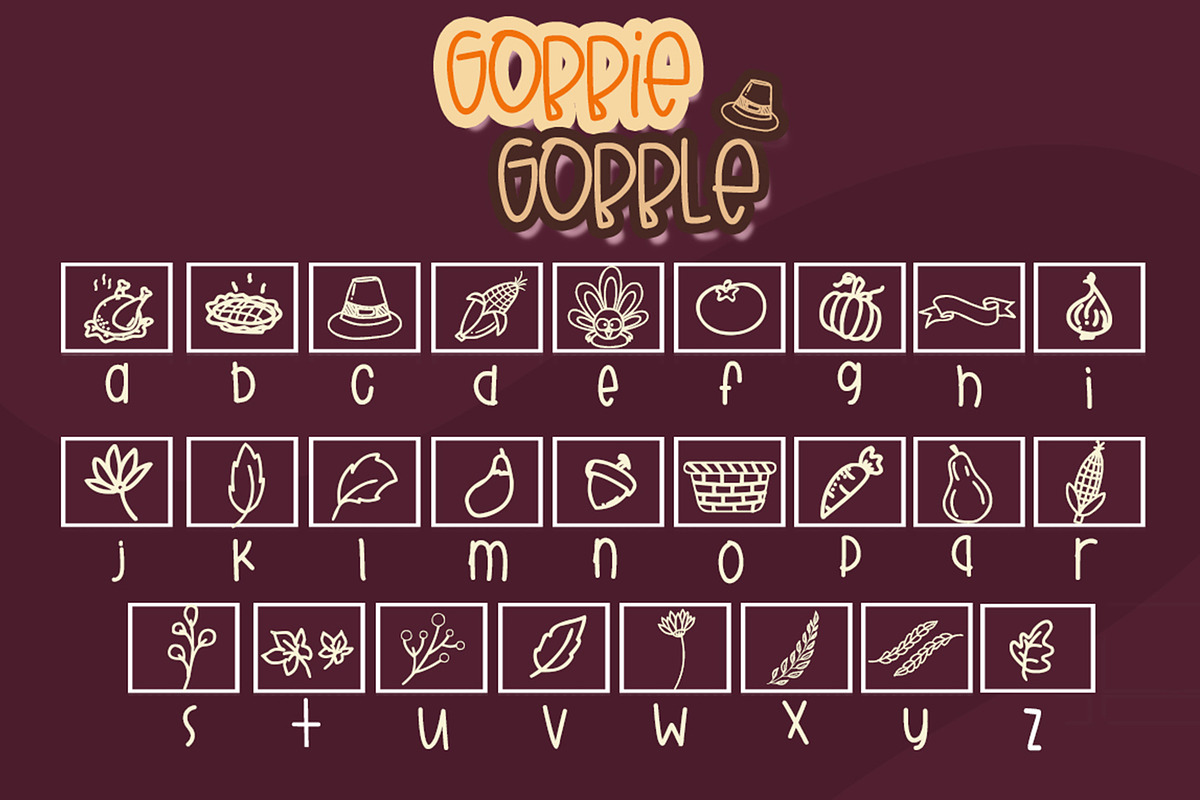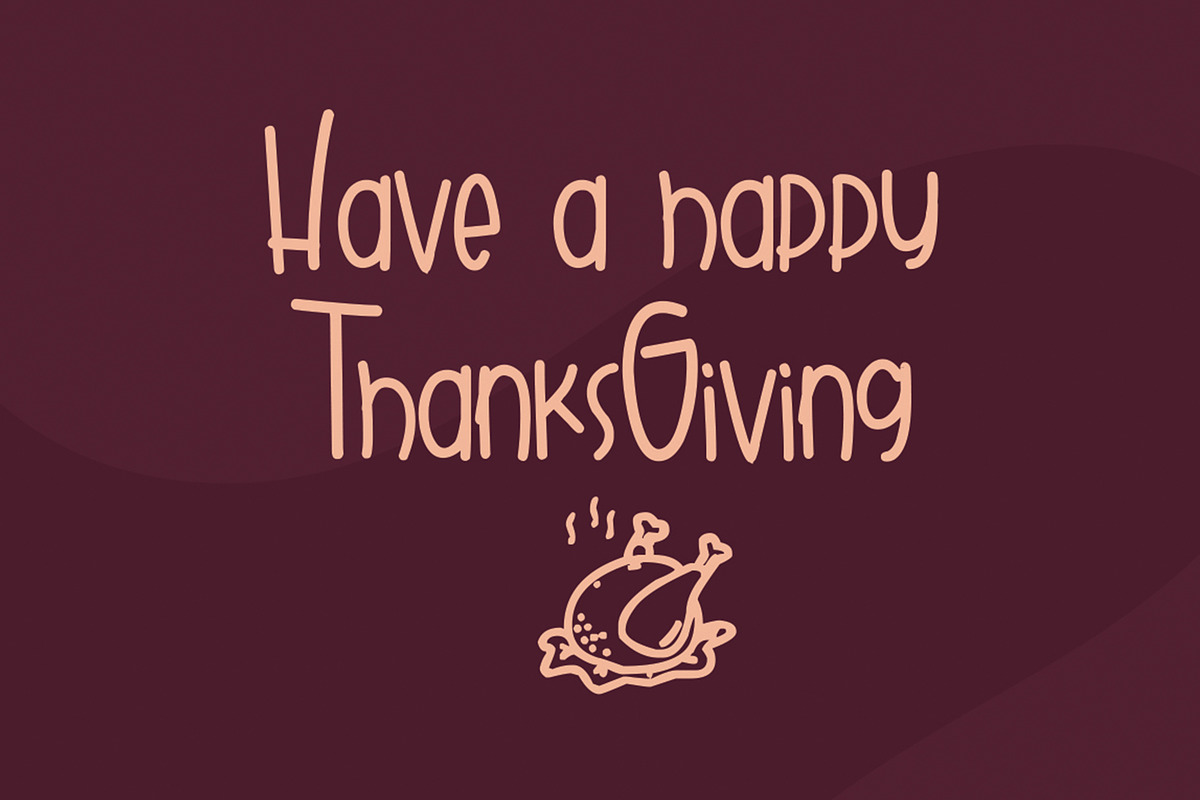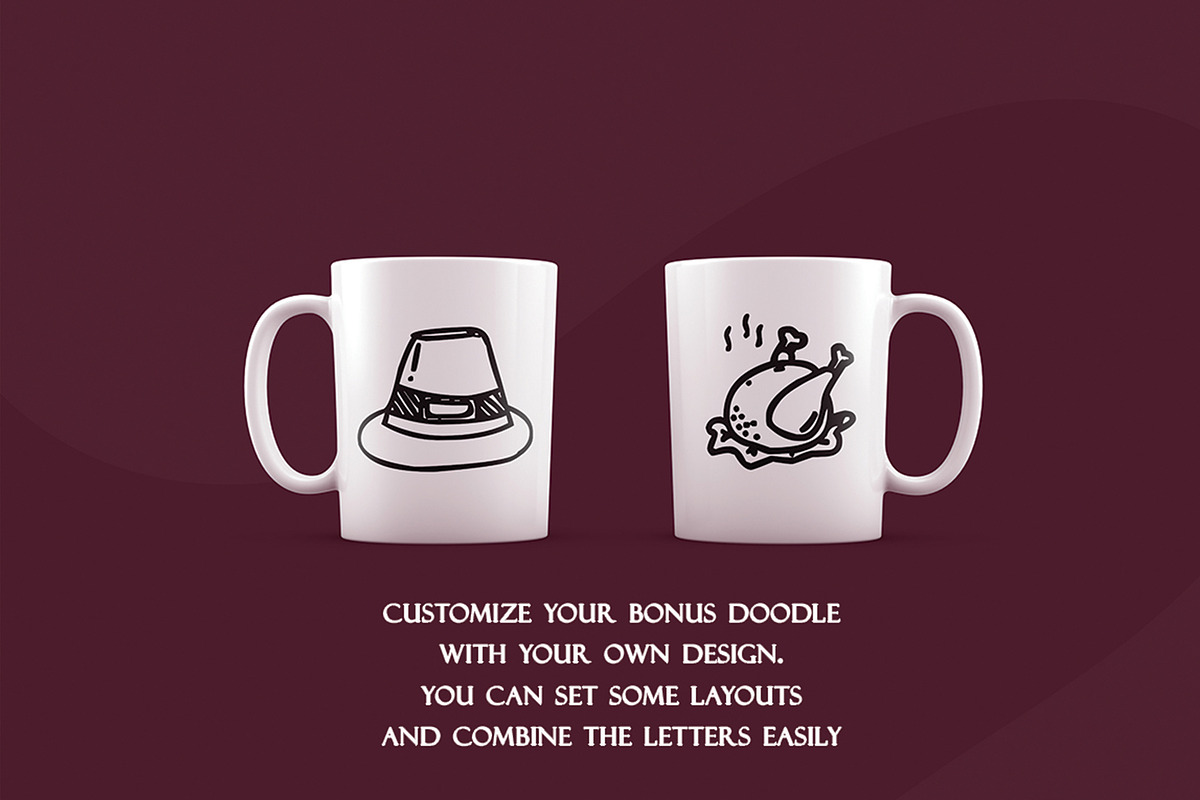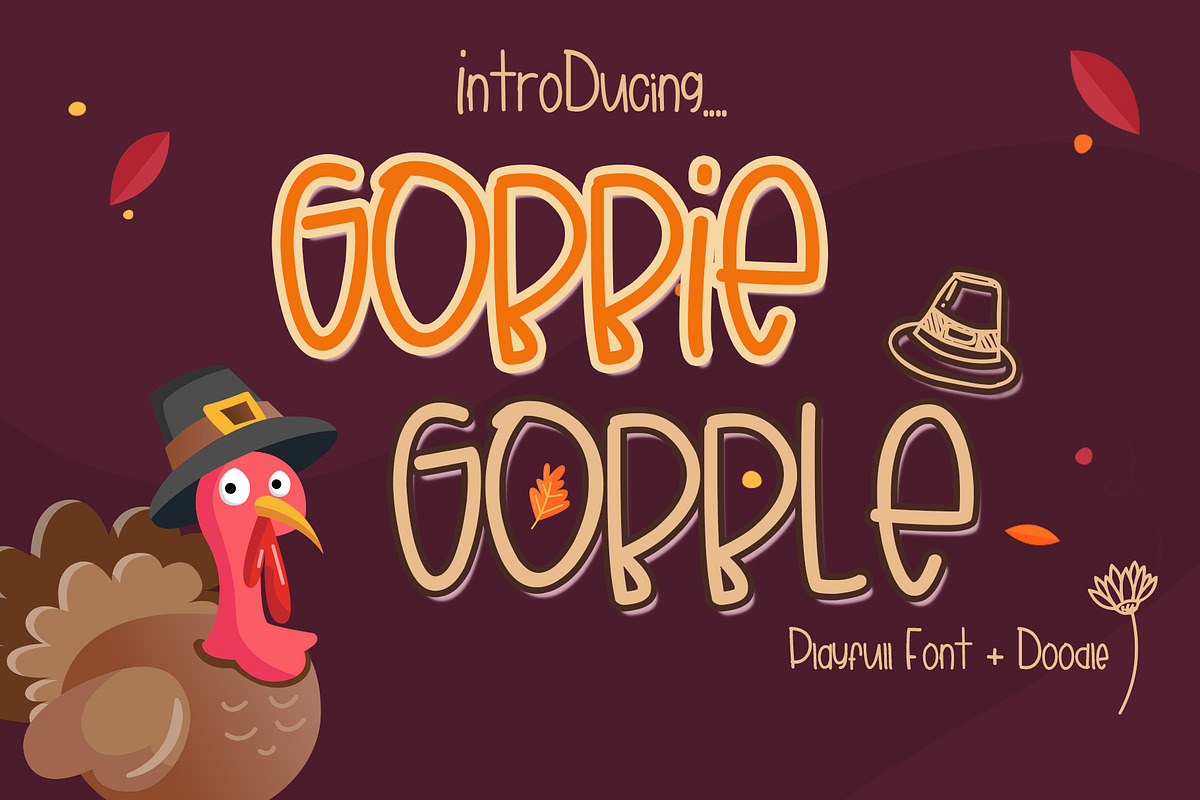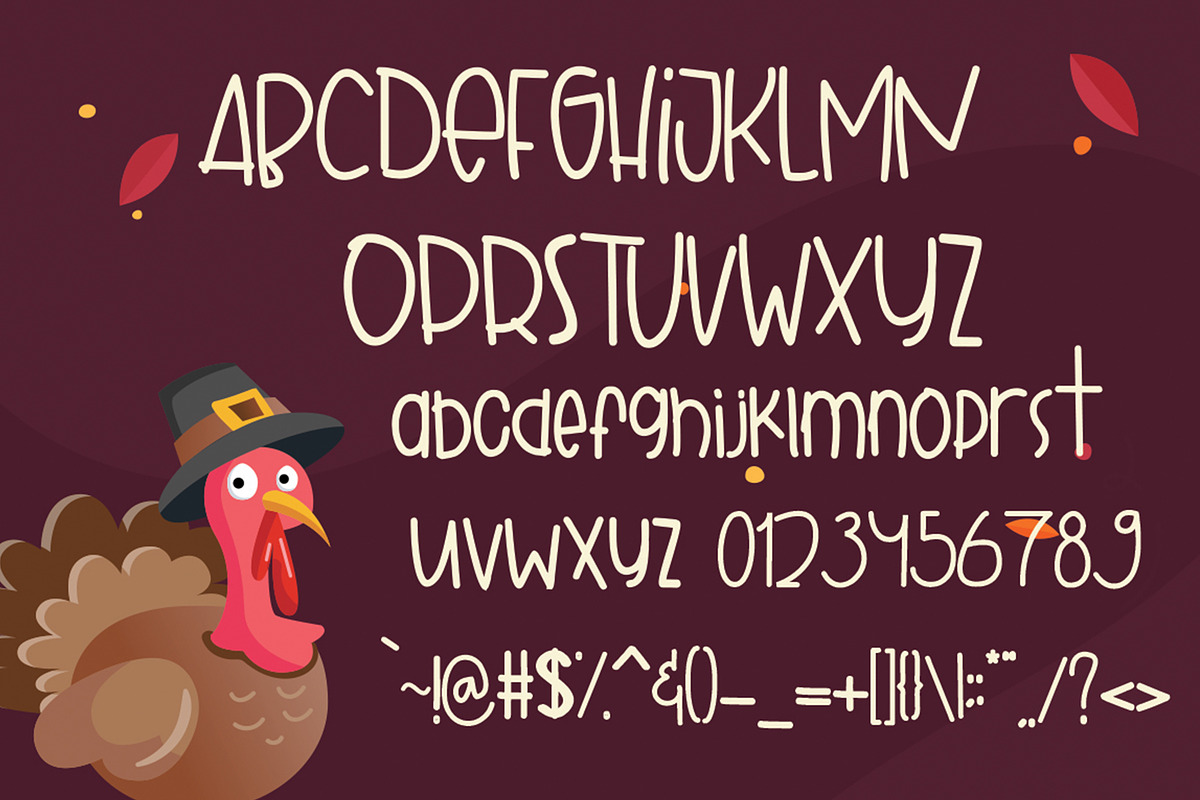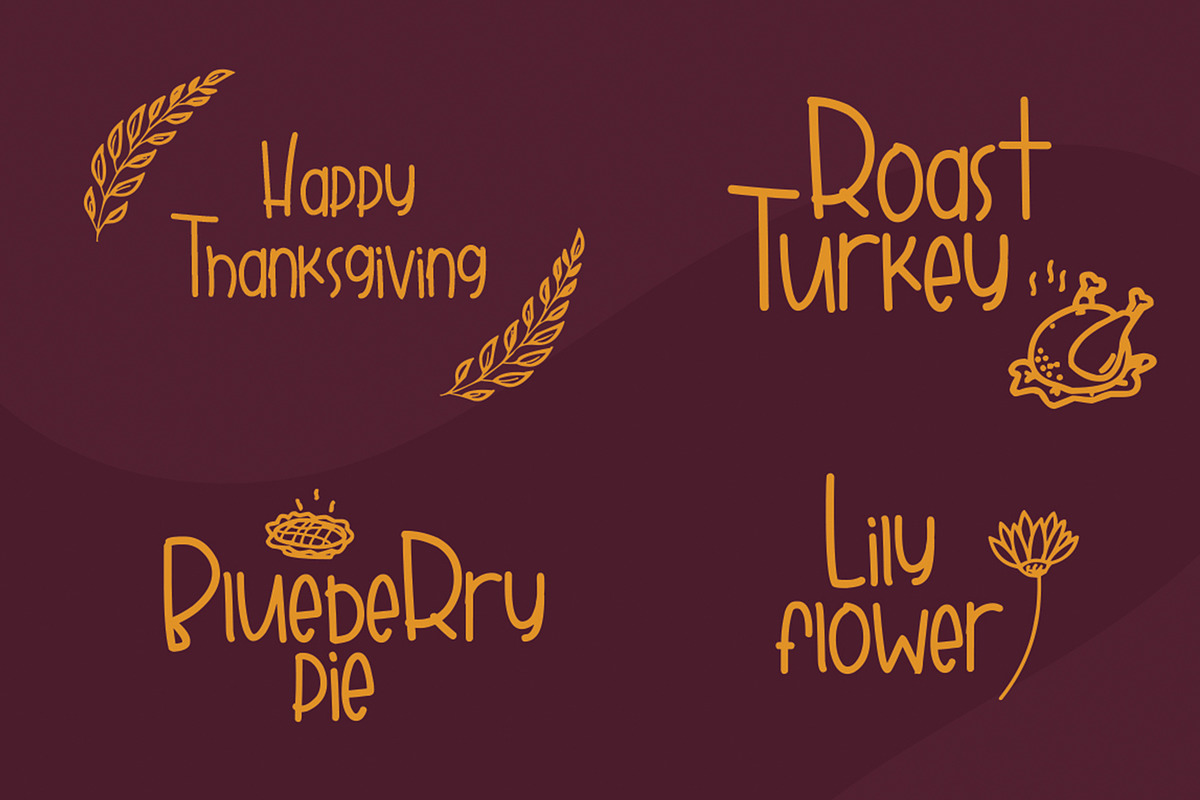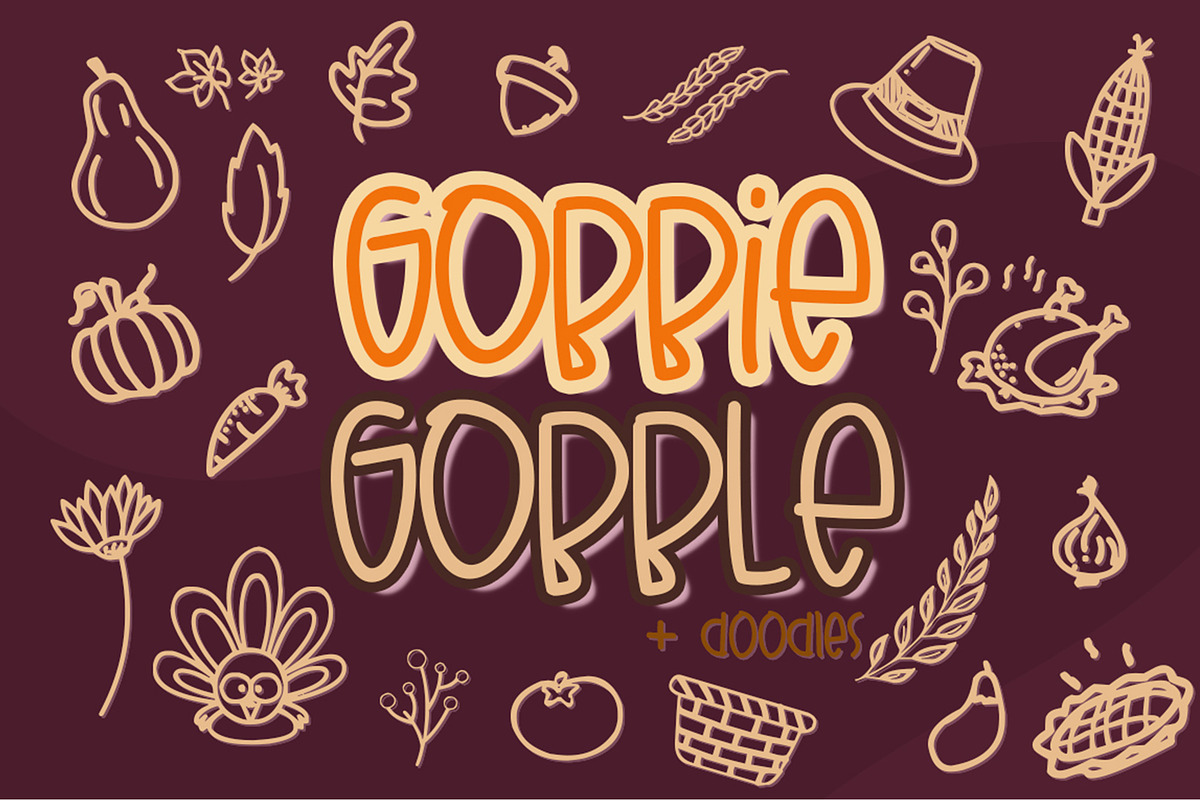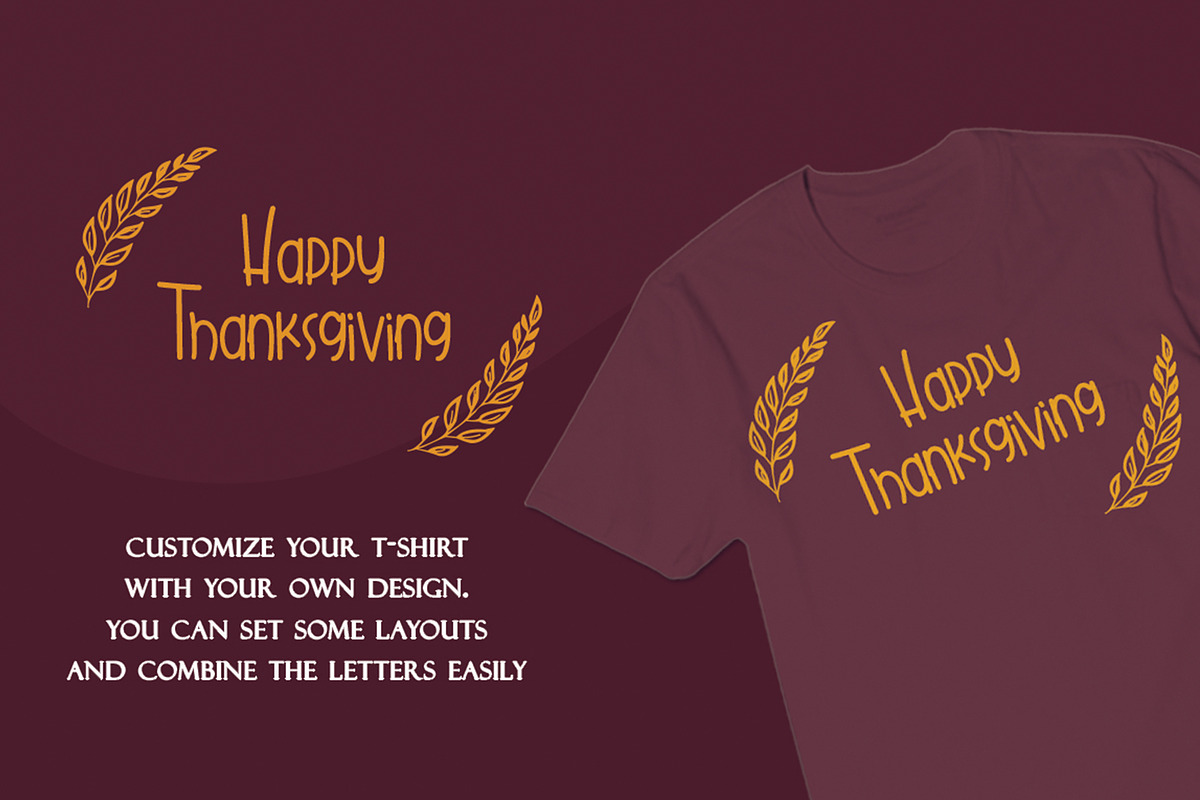
Gobbie Gobble - Thanks Giving Font
Gobbie Gobble is a handwritten font with Thanksgiving Theme. Perfectly fit for your designs, you can play with the glyphs and add some cute doodles that we have added for FREE !
Standard Characters, including UPPERCASE, lowercase, numerics and symbols.
26 Thanksgiving Doodles ( easily access by typing A-Z )